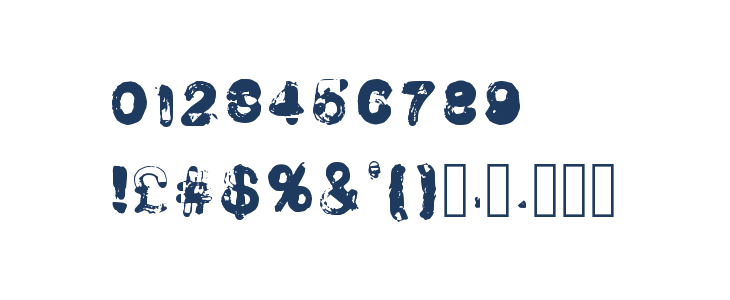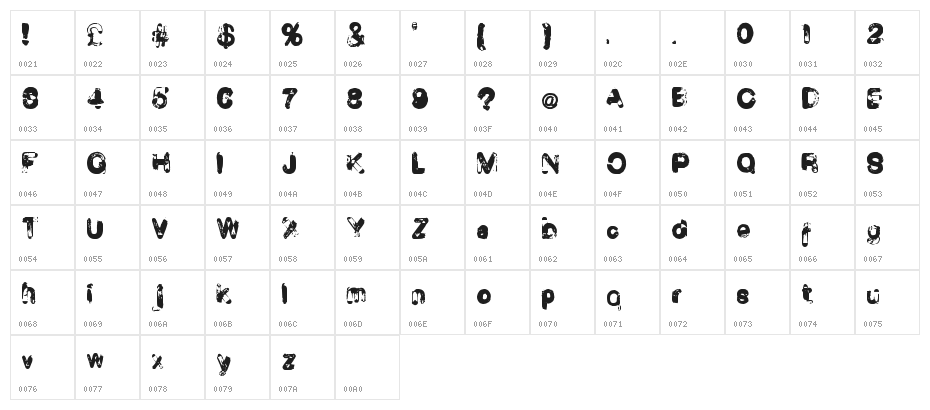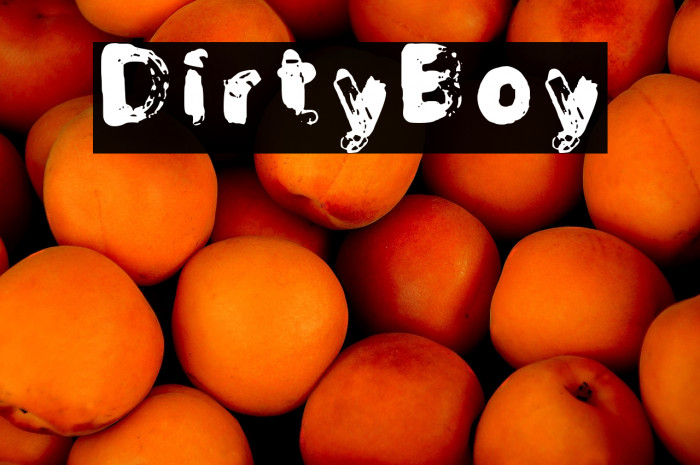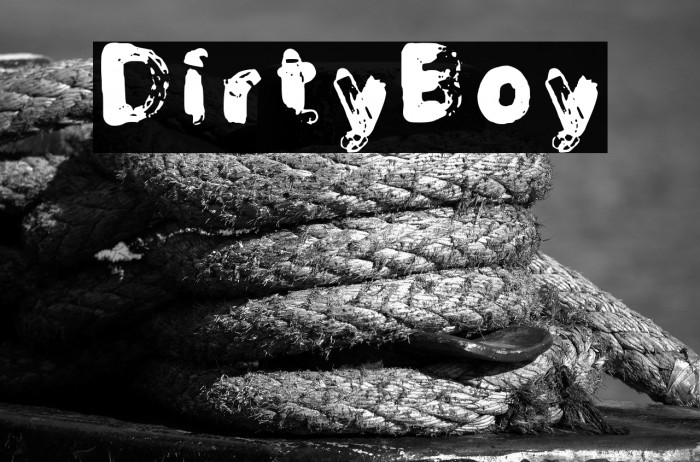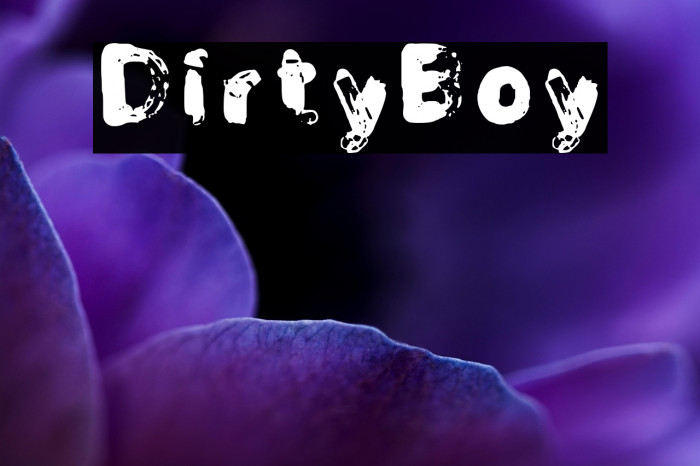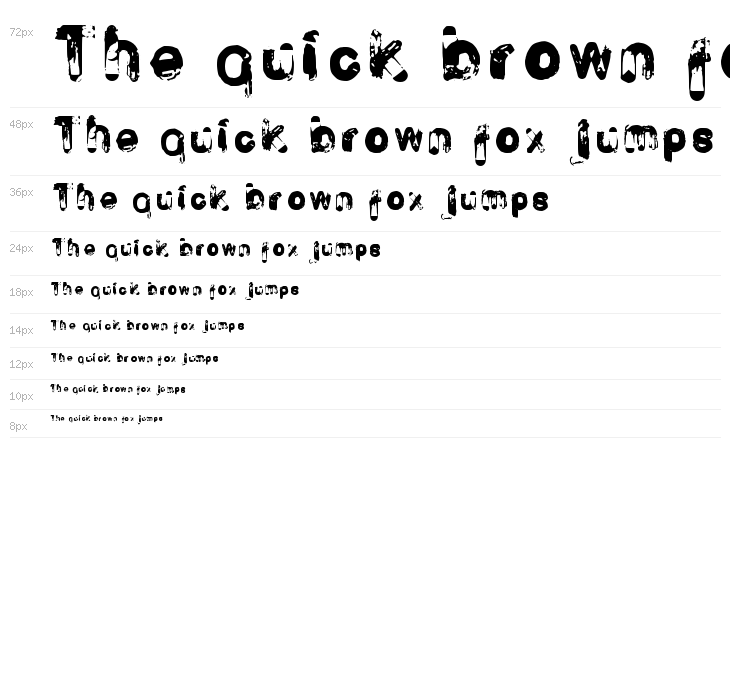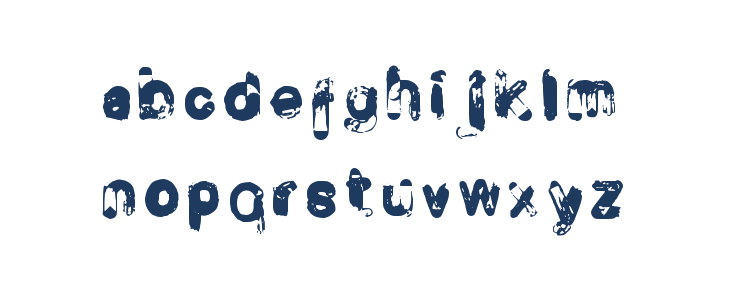
DirtyBoy Font
DirtyBoy Description
This font features a distressed and grungy aesthetic, with each character appearing as if it has been weathered or splattered with ink. The bold, thick strokes are irregular and uneven, giving the font a raw, edgy feel. The uppercase and lowercase letters maintain a consistent style, with the distressed effect creating a sense of movement and chaos. Numbers and special characters are equally bold and textured, making them stand out with a rugged charm. This font is perfect for projects that require a gritty, urban look, such as music album covers, streetwear branding, or edgy event posters.
| Overall Style | Grunge, Urban, Edgy |
| Proposed Projects | Ideal for music album covers, streetwear branding, edgy event posters, and urban-themed designs. |